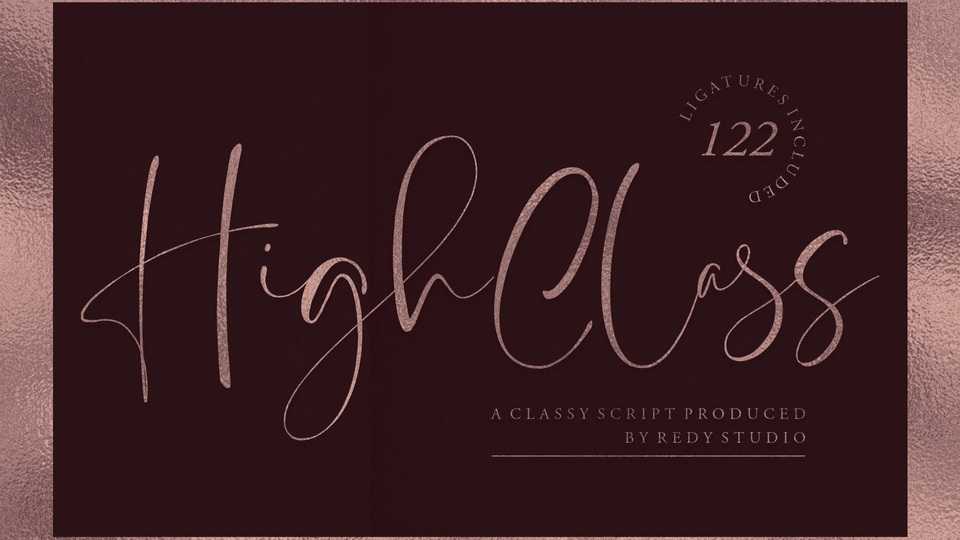
Download High Class font, a handwritten typeface with high-end style and embodies the most desirable elements of fashion, setting an impression of classiness. High Class font comes with a clean base look and all over the place forms with imperfect letters, messy style ligatures, and ampersands that make it complete.
Designer: Redy Studio